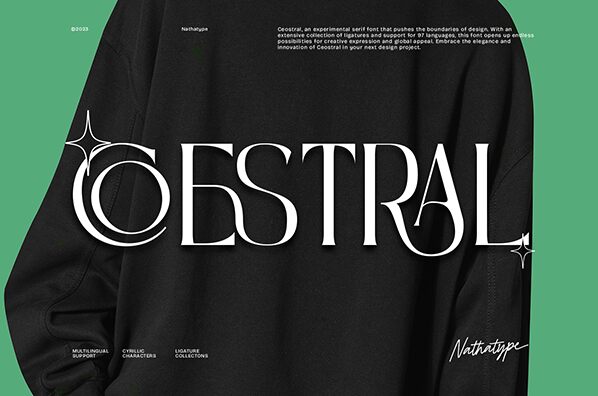
Coestral font designed by Nathatype is a sophisticated high-contrast serif font that is expressive and speaks the language of elegance. Its overall classic look with large curves gives it a soft invitation which gets much more powerful on large scales. This modern classic typeface is a stylish combination that connects smoothly with readers.
Text and display are both perfect for this free serif font. Coestral can be used for logos, branding, packaging, invitations, greeting cards & weddings design. Use it on product packaging, advertising posters, vintage designs or fashion posters/ads/covers to get an extraordinary final outcome!